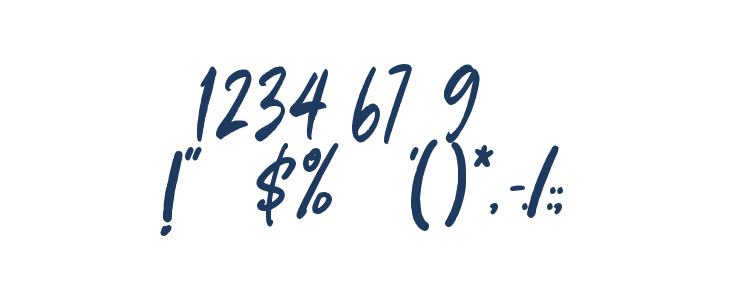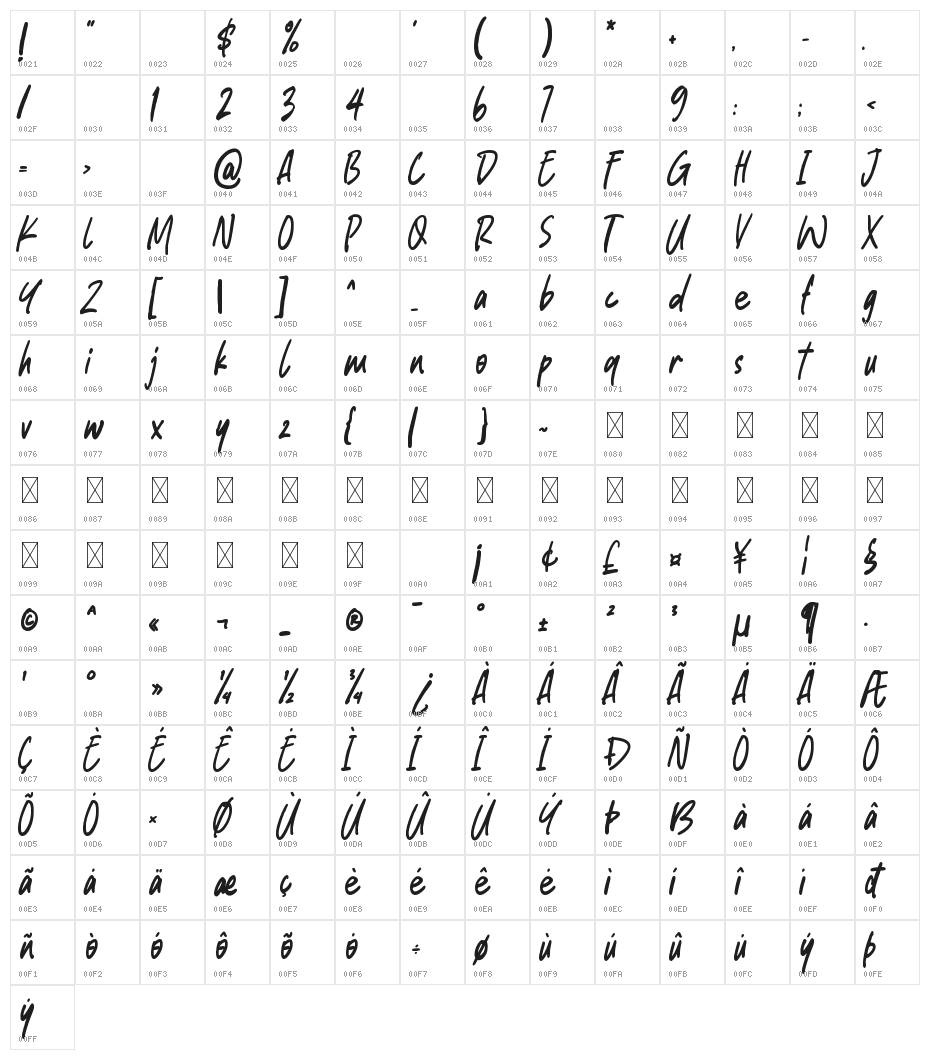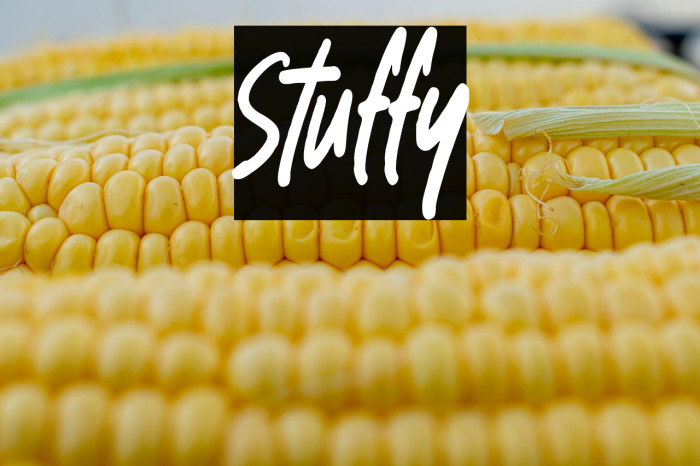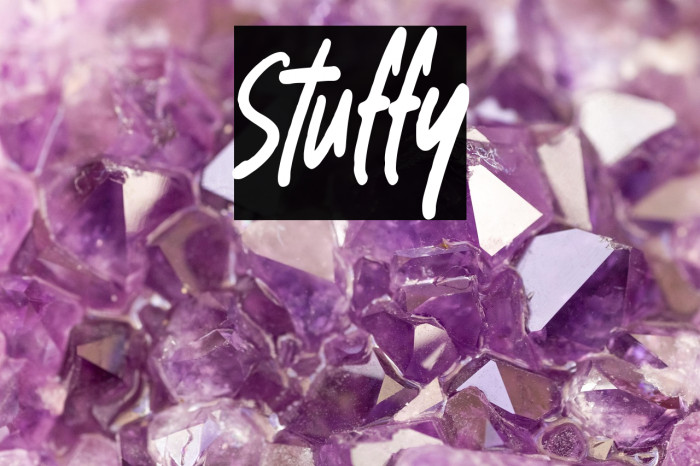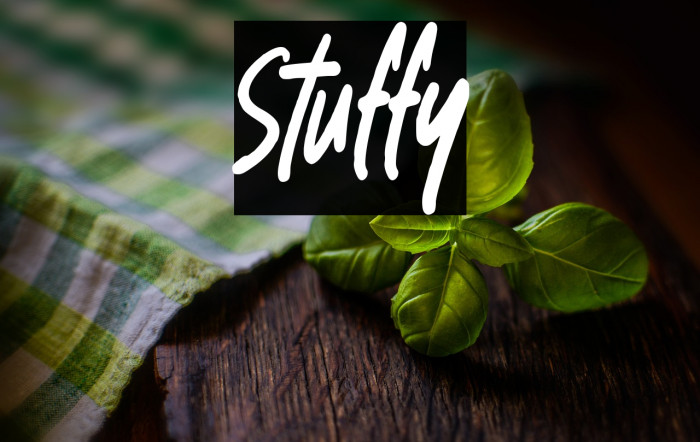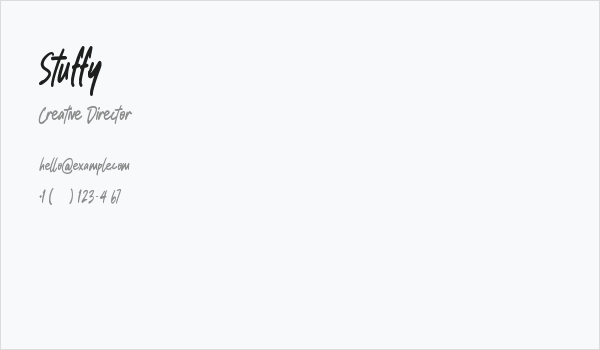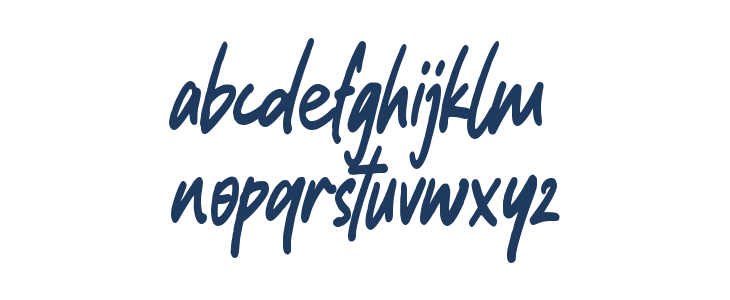
Stuffy Font
Stuffy Description
This font exudes a bold and expressive handwritten style, characterized by its fluid and dynamic strokes. The letters are slightly slanted, giving a sense of movement and energy. The uppercase letters are tall and commanding, while the lowercase letters maintain a consistent flow, creating a harmonious balance. The numbers and special characters follow the same energetic style, making them stand out. The overall appearance is informal yet impactful, suitable for projects that require a personal touch or a creative flair.
| Proposed Projects | Ideal for creative projects such as posters, invitations, and branding that require a personal and artistic touch. |